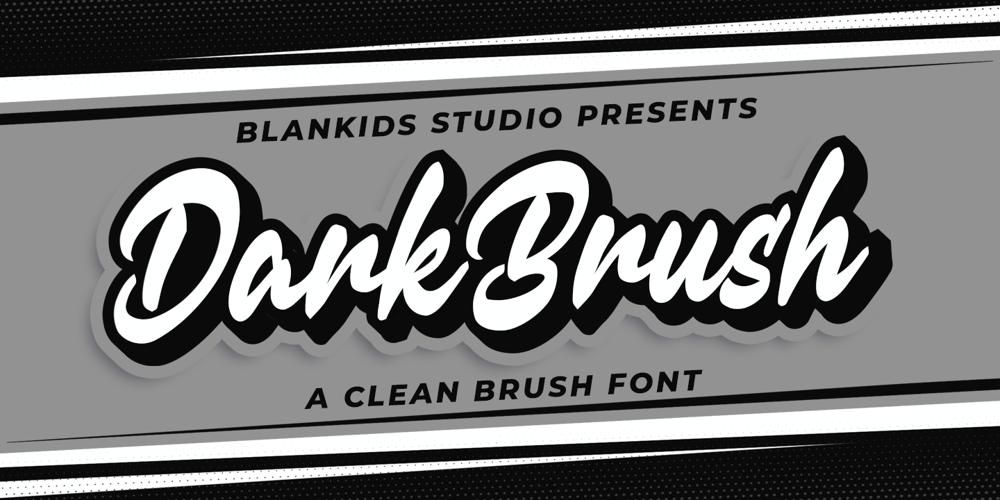
Dark Brush
Dark Brush font
Dark Brush Font Family was designed by Bangkit Tri Setiadi and published by Blankids. Dark Brush contains 2 styles and family package options. Hello,Are you looking for a clean brush script font? Do you want of creating Something that stand out and inspire creativity, imagination, and endless fun? Wait no more, we will give you the best choice.Dark brush a Clean Brush Font, Inspiring from brush lettering style typography. This font is perfect for a design that makes it more attractive and playful. made with a very good level of aesthetics making this font suitable for book cover, poster, packging, merchandise, logotype and much more.Dark brush font includes Multilingual Support, among others :Afrikaans, Albanian, Asu, Basque, Bemba, Bena, Breton, Catalan, Chiga, Cornish, Danish, Dutch, English, Estonian, Faroese, Filipino, Finnish, French, Friulian, Galician, German, Gusii, Indonesian, Irish, Italian, Kabuverdianu, Kalenjin, Kinyarwanda, Luo, Luxembourgish, Luyia, Machame, Makhuwa, Meetto, Makonde, Malagasy, Manx, Morisyen, North Ndebele, Norwegian Bokmål, Norwegian Nynorsk, Nyankole, Oromo, Portuguese, Quechua, Romansh, Rombo, Rundi, Rwa, Samburu, Sango, Sangu, Scottish Gaelic, Sena, Shambala, Shona, Soga, Somali, Spanish, Swahili, Swedish, Swiss German, Taita, Teso, Uzbek (Latin), Volapük, Vunjo, ZuluFEATURES : Uppercase Lowercase Number Punctuation Multilingual PUA Encode Opentype